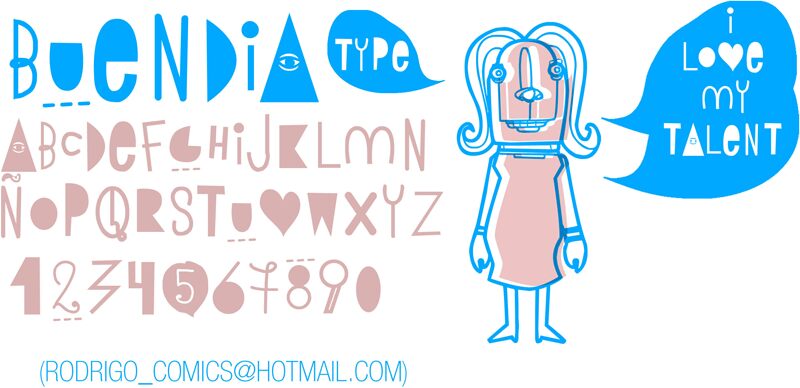
Buen Dia by RAS is a free decorative display font with wildly varied letter shapes. Wiry outlined characters sit beside dense silhouettes, broad curves, and abrupt cutouts. Eye, scissor, and heart-like motifs make the alphabet a sequence of small illustrations.
Surrealist humor makes it apt for posters and music packaging. Event graphics and merchandise can use those shifting silhouettes as a cast of symbols. For magazine covers, the illustrated letters let typography take on the role of editorial artwork.